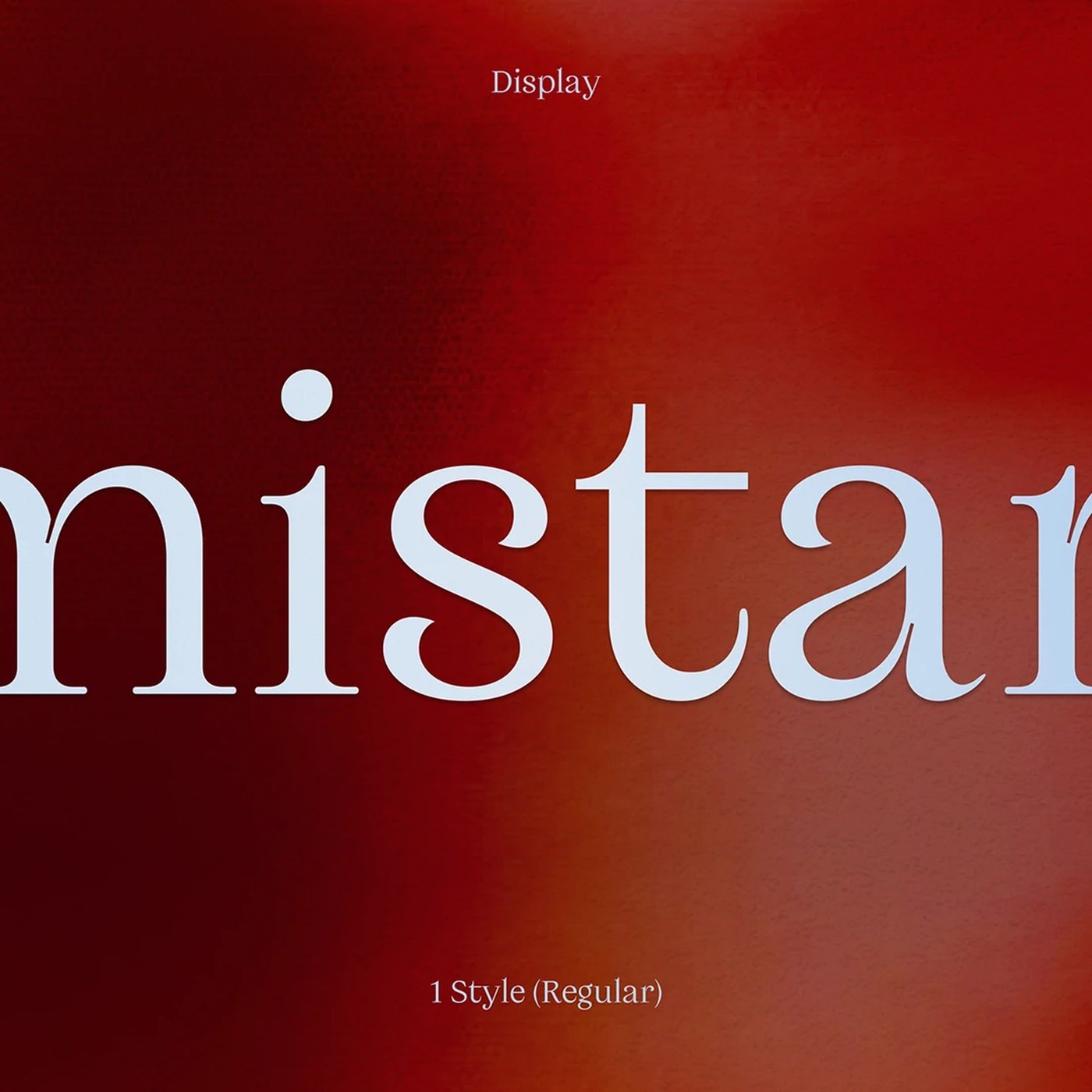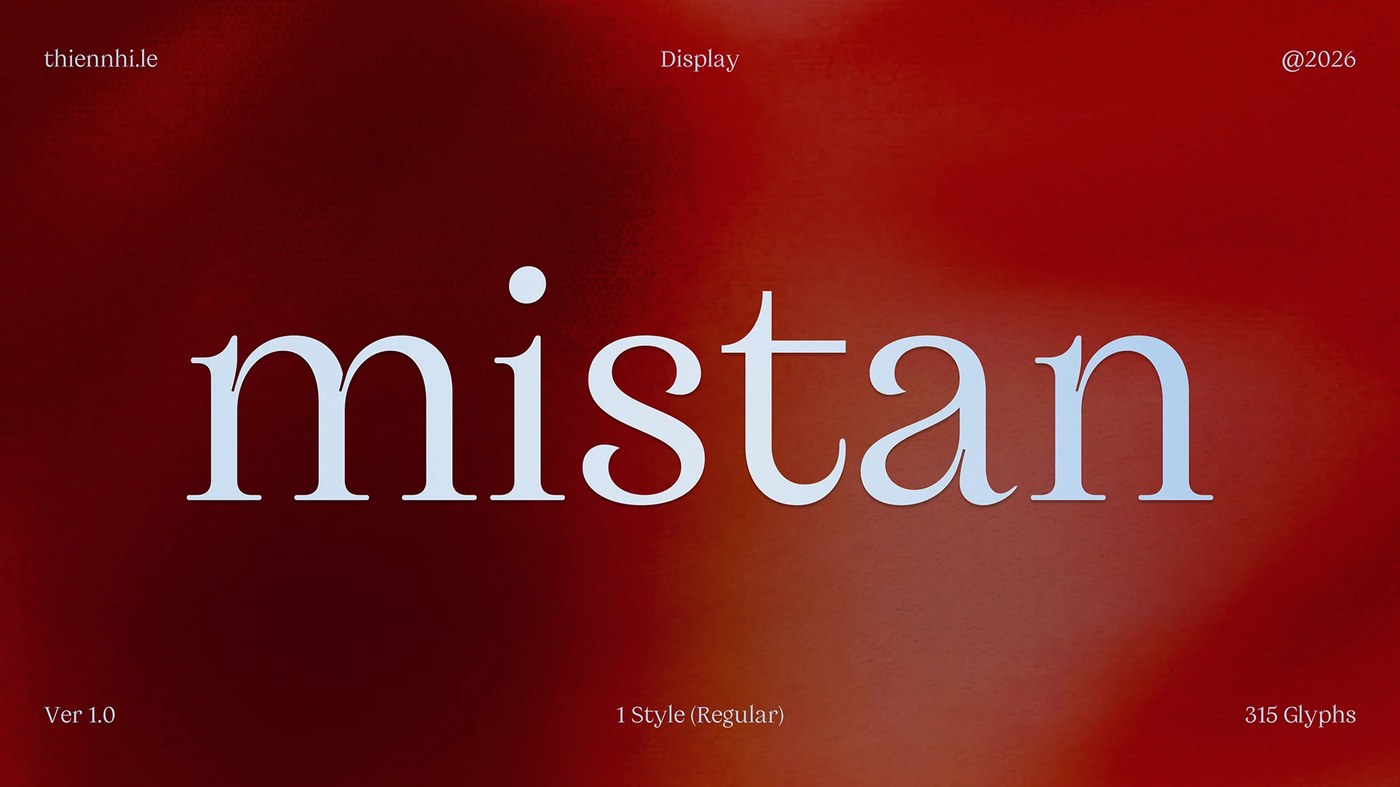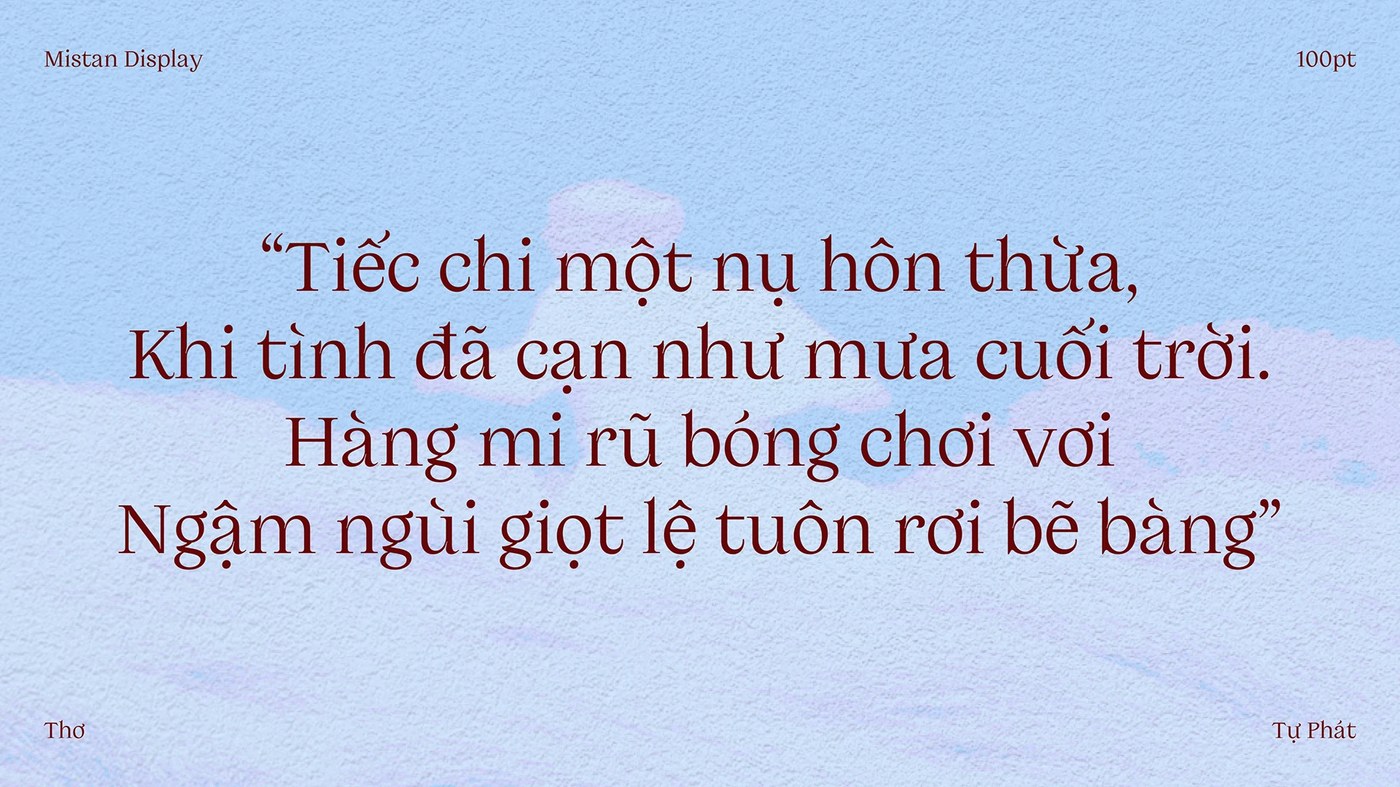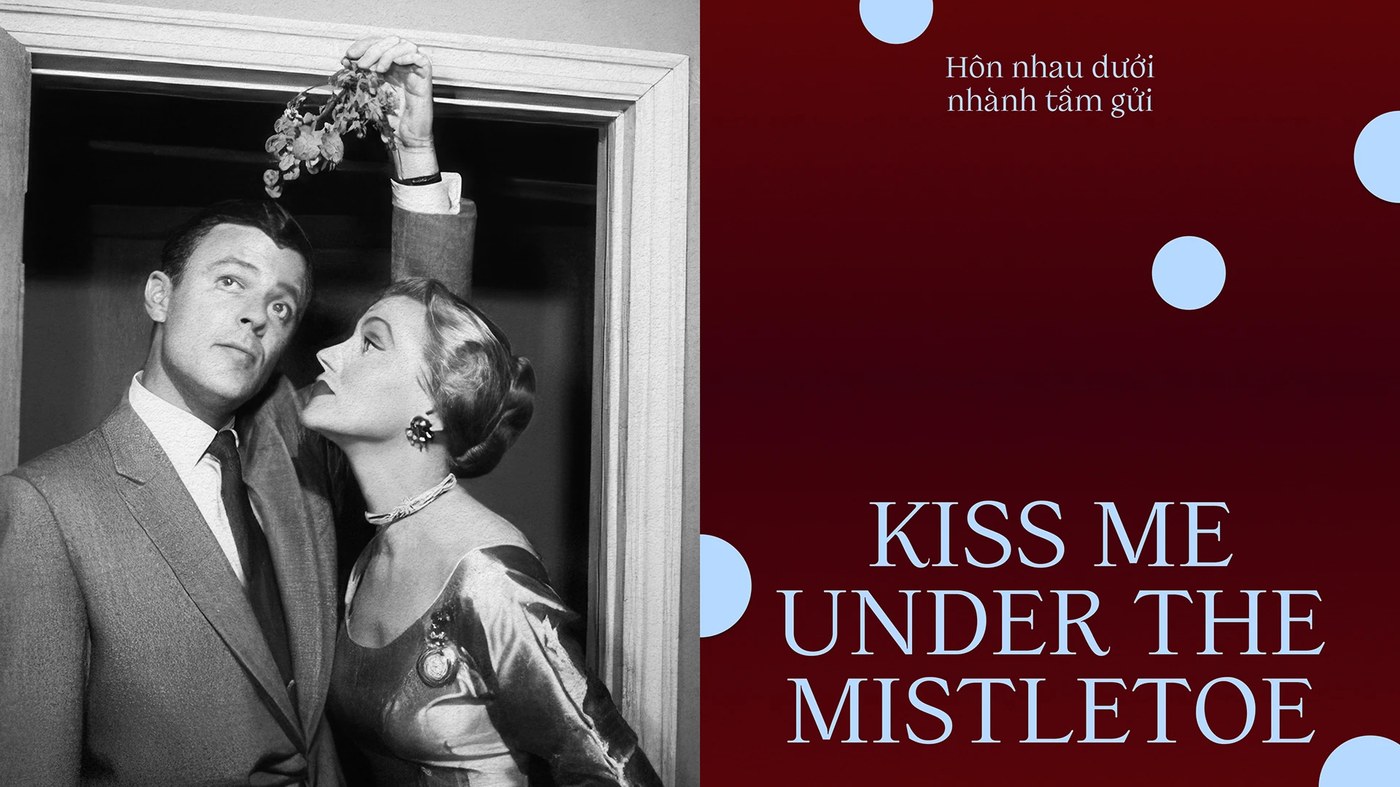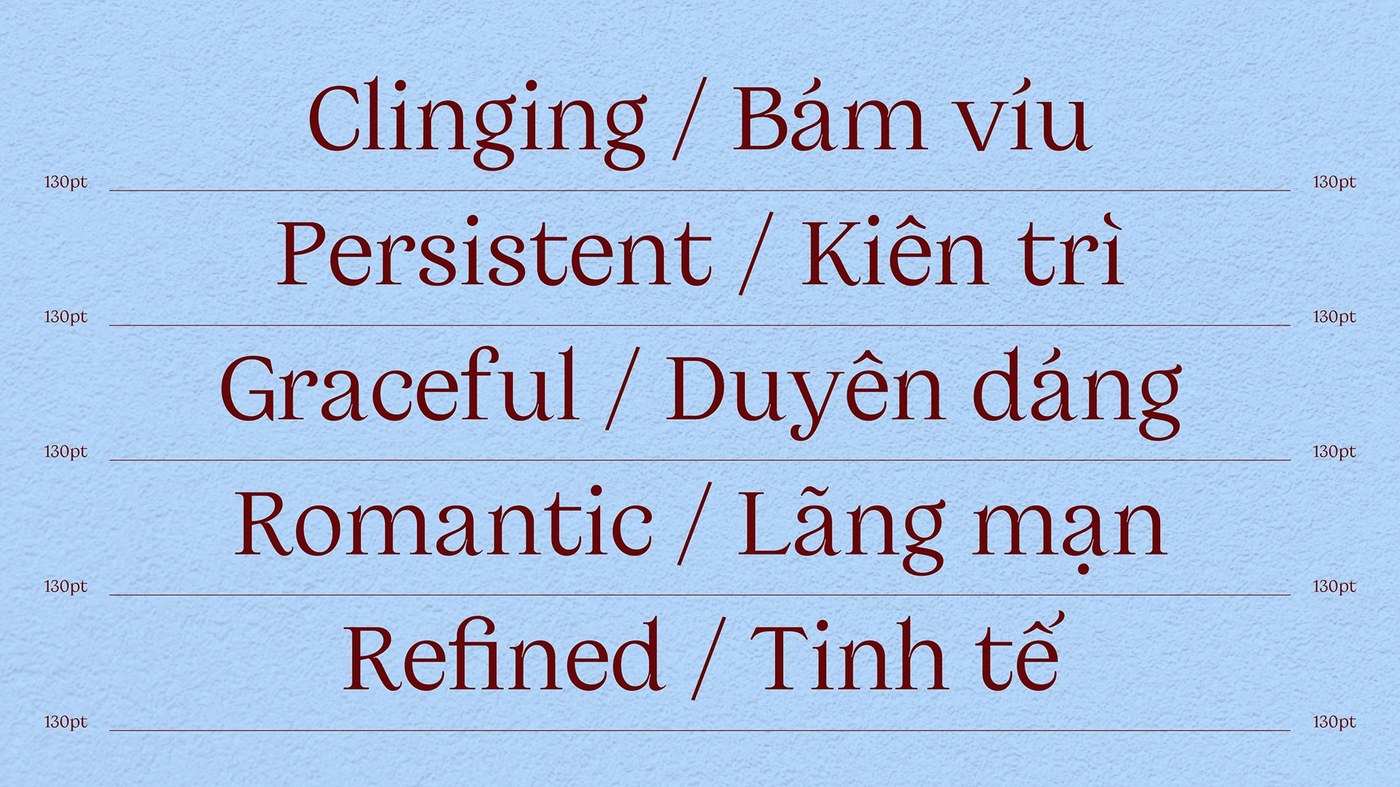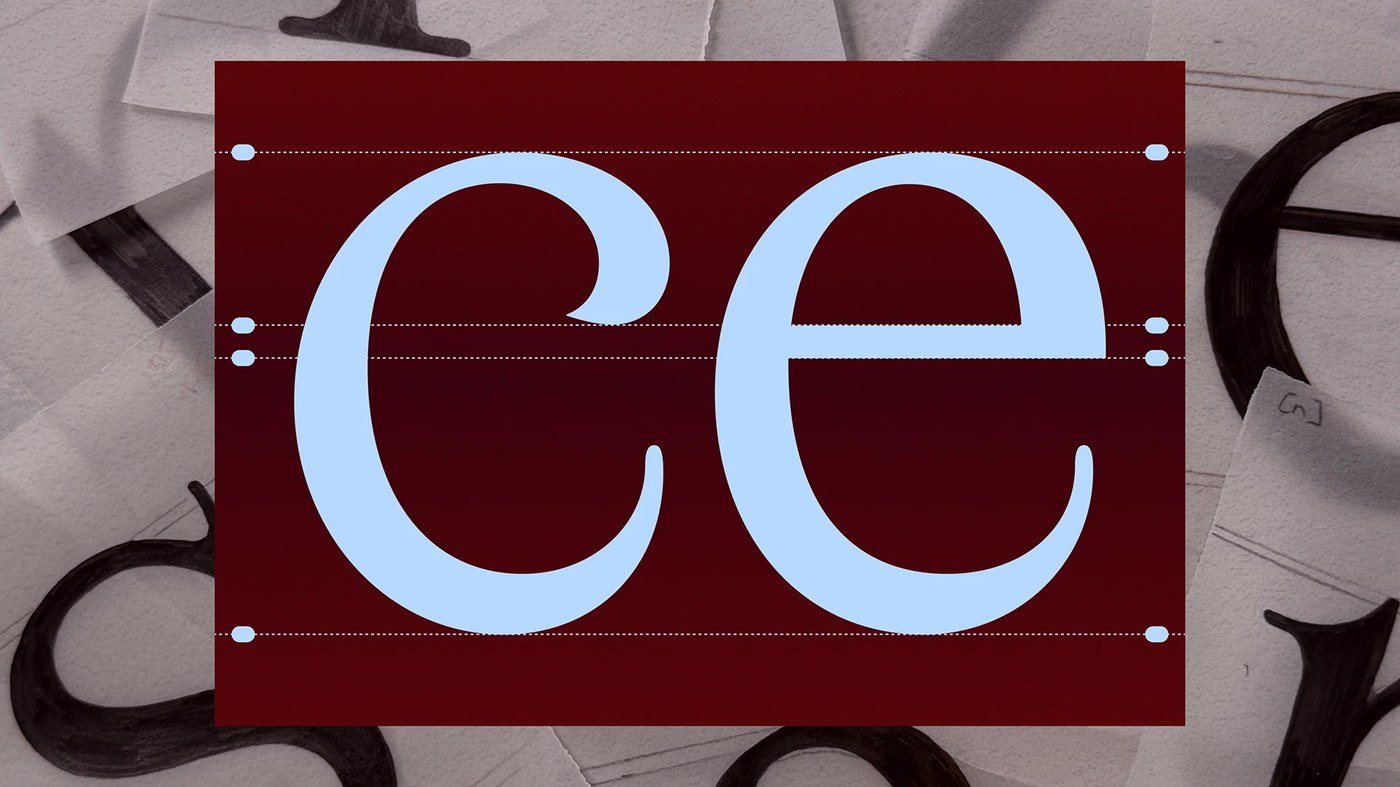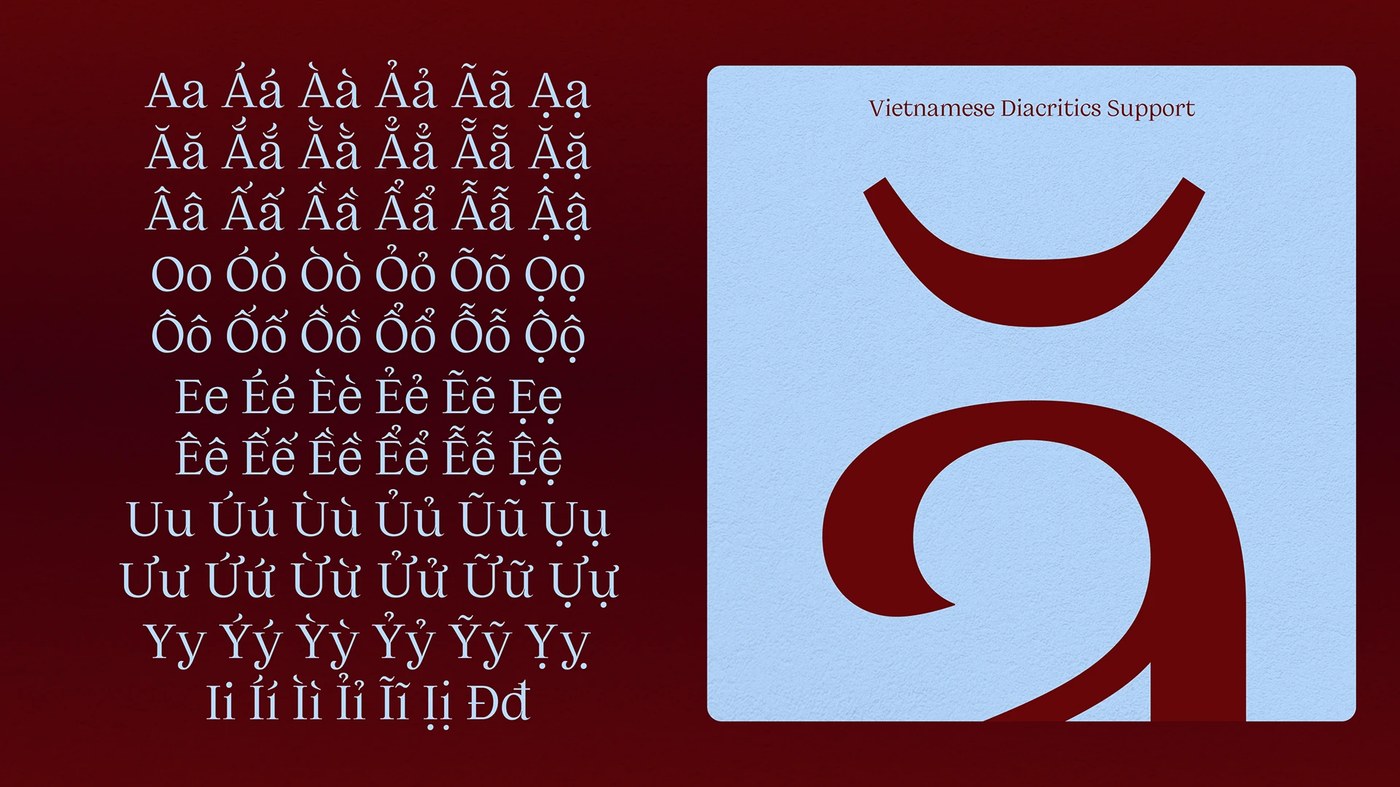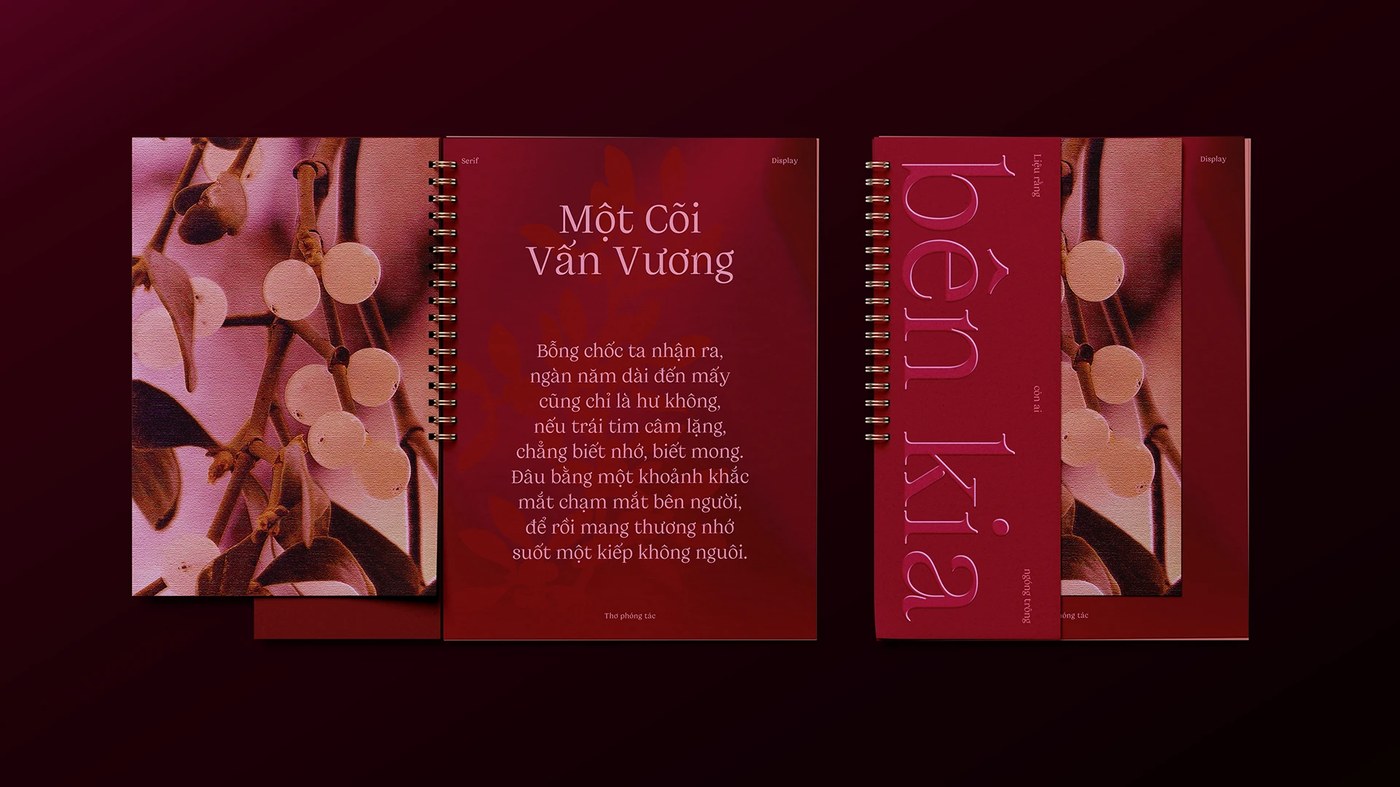
The Genesis and Philosophy Behind Mistan Display
Mistan Display emerges from a compelling conceptual foundation, drawing direct inspiration from the dual nature of mistletoe. This plant, often associated with romance and natural grace, also possesses a tenacious and structural presence. Thiennhi Le masterfully translates this duality into a typographic language, creating a typeface that is simultaneously commanding and subtly elegant. The design ethos prioritizes a harmonious interplay between strength and softness, a characteristic that is immediately apparent in its intricate letterforms.
At the heart of Mistan Display’s visual identity are its high-contrast flare serifs. These distinctive serifs are not merely decorative elements but integral components that define the typeface’s assertive yet refined character. They exhibit a sharp delineation between thick and thin strokes, a hallmark of classic display serifs, yet are rendered with a contemporary sensibility that prevents them from appearing antiquated. This meticulous contrast ensures that each glyph possesses a dynamic visual tension, making it particularly effective in large-scale applications where clarity and impact are paramount.
The rhythmic glyph curves further contribute to Mistan Display’s unique aesthetic. These curves are not arbitrary but carefully orchestrated to create a fluid, organic motion across the character set. Inspired by botanical contours, they imbue the typeface with a sense of natural grace, echoing the gentle sway of plant forms. This organic fluidity is balanced by a robust architectural framework, ensuring that the typeface maintains structural integrity and legibility even when pushed to extreme scales. The interplay of these elements results in a sturdy yet delicate appearance, a testament to Le’s thoughtful design approach.
Deconstructing the Anatomy of Mistan Display
A closer examination of Mistan Display reveals a meticulous attention to typographic detail. The typeface features thick vertical stems that provide a strong foundational structure for each letterform. These vertical elements are sharply contrasted by thin horizontal bars, a classic serif characteristic that is executed with precision in Mistan Display. This dramatic difference in stroke weight contributes significantly to the typeface’s high-contrast appeal, enhancing its visual punch in headlines and titles.
Soft, rounded serif feet anchor each letterform, providing a subtle counterpoint to the sharper flare serifs. These rounded terminals ensure stability and readability, preventing the typeface from appearing overly rigid despite its strong architectural lines. They also contribute to the overall impression of elegance and refinement, inviting the reader’s eye to move smoothly across the text.
Perhaps one of the most distinctive features of Mistan Display is its rhythmic teardrop terminals. These elegant flourishes add a fluid, organic motion to the glyph structures, reminiscent of natural forms or calligraphic strokes. The teardrop shape, a common element in various serif styles, is reinterpreted here with a fresh perspective, contributing to the typeface’s unique character and reinforcing its botanical inspiration. This subtle yet impactful detail adds a layer of sophistication, ensuring that even individual characters possess a sculptural quality.
Crucially, the weight distribution across the entire character set of Mistan Display is meticulously balanced. This careful calibration ensures that every curve and line weight communicates a clear artistic intent, without relying on unnecessary ornamentation or visual clutter. The absence of gratuitous embellishment speaks to a mature design philosophy, where form follows function and aesthetic appeal is derived from inherent structural harmony rather than superficial decoration. This considered approach results in a typeface that is both expressive and highly functional.
Typography Design for Modern Editorial and Display Applications
The practical utility of Mistan Display is immediately evident in its type specimen layouts. These layouts are not merely showcases but strategic demonstrations of the typeface’s capabilities, establishing a clear visual hierarchy perfectly suited for editorial headlines and large display scales. By employing generous white space and extreme scale contrast, Thiennhi Le effectively allows the letterforms themselves to act as the primary graphic elements. This design choice underscores the typeface’s inherent strength and aesthetic appeal, proving its efficacy in commanding attention in various media.
The layout grids employed in the specimens align the multi-lingual glyph set with structured discipline, presenting the comprehensive 315 character options in an organized and accessible manner. This grid-based approach ensures consistency and readability, crucial for complex typographic projects. Standard kerning pairs and balanced vertical tracking are meticulously applied, guiding the reader’s eye seamlessly across compact text blocks and expansive full-bleed display prints. This rigorous grid discipline ensures that both digital layouts and physical page spreads retain a clean, academic structure, making Mistan Display a reliable tool for professional designers.
The Broader Context: Mistan Display in Contemporary Typography
Within the wider context of contemporary typography design, Mistan Display represents a significant contribution, demonstrating a meticulous attention to linguistic utility that is often overlooked in purely aesthetic ventures. The project highlights a critical need in global typography for robust multi-lingual support, especially for languages with complex diacritical systems. Thiennhi Le’s refinement of the typography design ensures that comprehensive support for Vietnamese diacritics works cleanly and efficiently across different digital platforms.
In conclusion, Mistan Display by Thiennhi Le is more than just a new typeface; it is a carefully crafted typographic system that balances historical reverence with contemporary demands. Its elegant layouts, precise anatomical details, and unwavering commitment to linguistic utility mark it as a standout project in modern type design. As designers continue to seek typefaces that offer both aesthetic distinction and practical versatility, Mistan Display stands ready to enrich editorial headlines, display signage, and digital interfaces with its unique blend of robust architecture and graceful botanical contours, proving that even a debut can set a new standard for excellence.